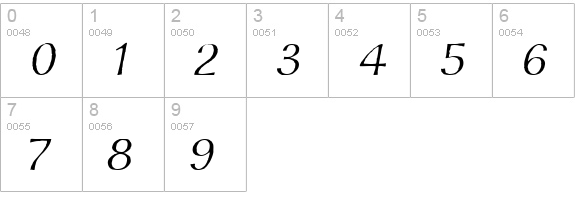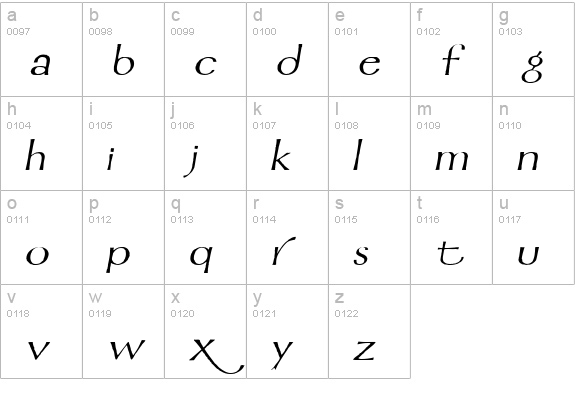
Mordred Italic Font Details
Mordred Italic is a distinctive, italic variant in the Mordred typeface family \xE2\x80\x94 well suited to design and typography projects.
Mordred Italic font is a stunning and elegant typeface that exudes sophistication and style. With its sleek and slanted design, Mordred Italic is perfect for adding a touch of class to any project. Whether you're creating invitations, posters, or branding materials, this font will elevate your design to the next level. And the best part? Mordred Italic font is completely free to download at FontsMarket.com! This means you can access this beautiful font without any cost and use it for your personal or commercial projects. Don't miss out on this opportunity to enhance your designs with Mordred Italic font today!